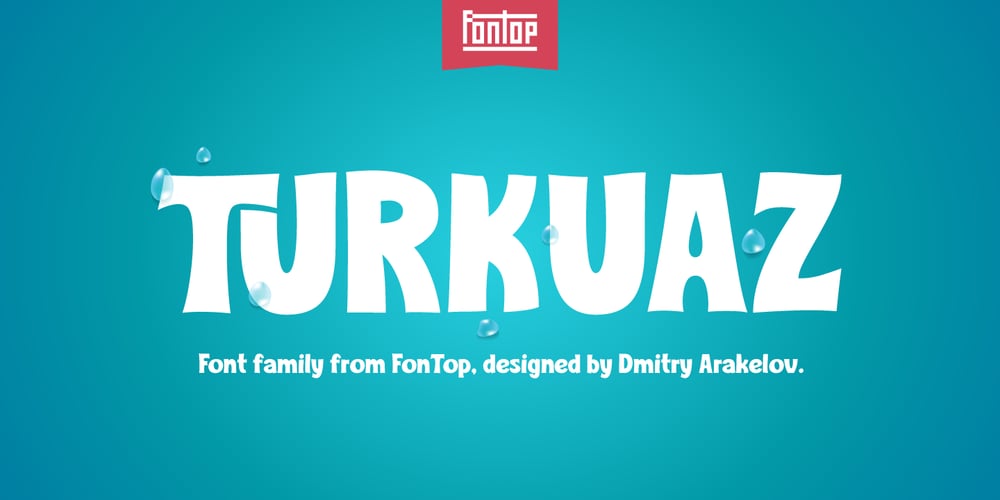
Turkuaz Font Family was designed by Dmitry Arakelov and published by Fontop. Turkuaz contains 3 styles and family package options. Welcome my new typeface family Turkuaz. Funny and stylish, creative and distinctive Turkuaz is great in headlines, premiums and web sites + blogs. Being a super readable it can be used in texts as well. Three fonts are included into the family – Turkuaz Regular, Turkuaz Deco and Turkuaz Italic. Special ligatures that you can switch on/switch off make headlines and texts sooo cute, I love them! Both OTF and TTF are included for each font. Fonts are Latin multilingual and have uppercase letters, lowercase letters, numbers and basic punctuations.